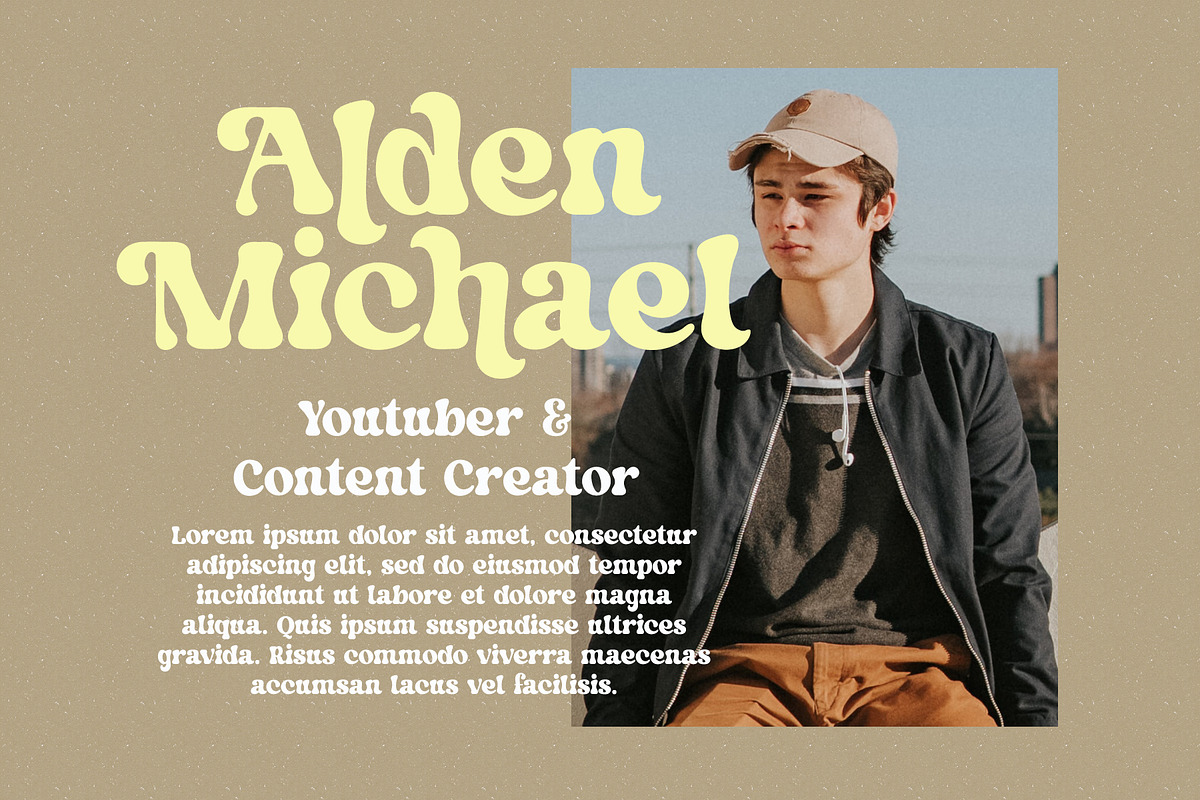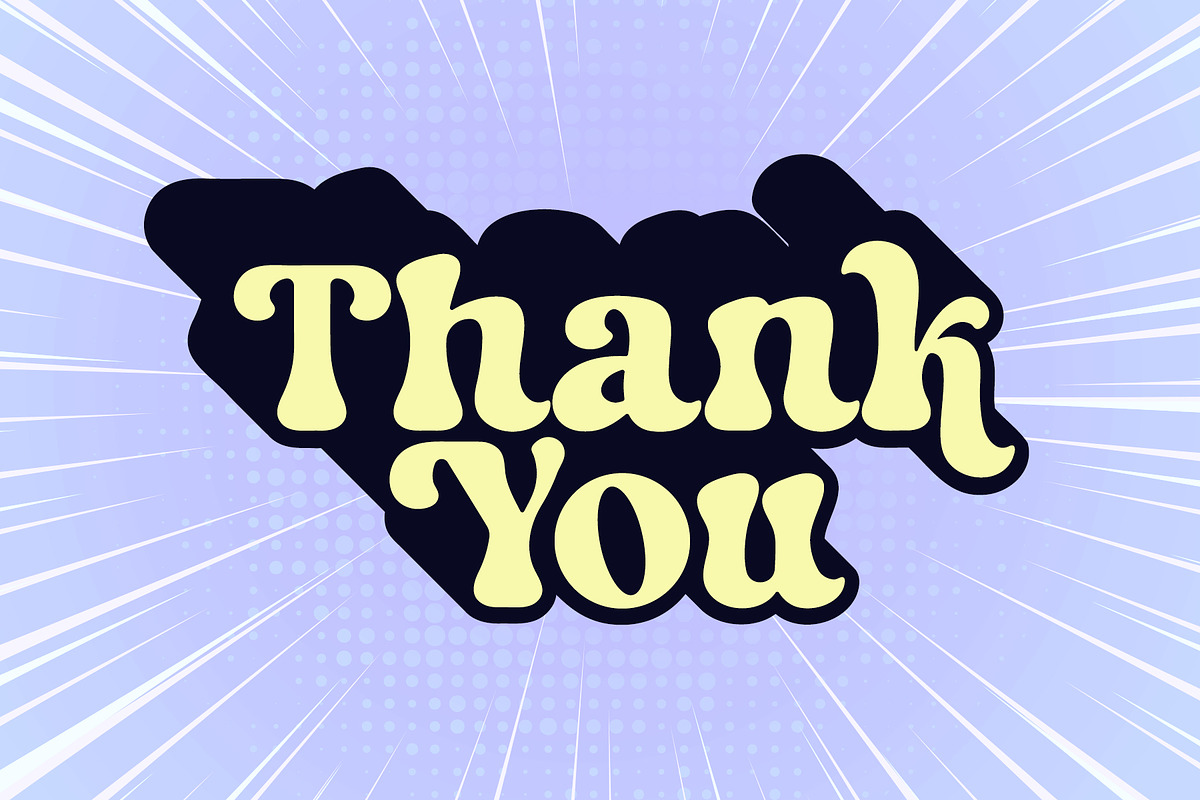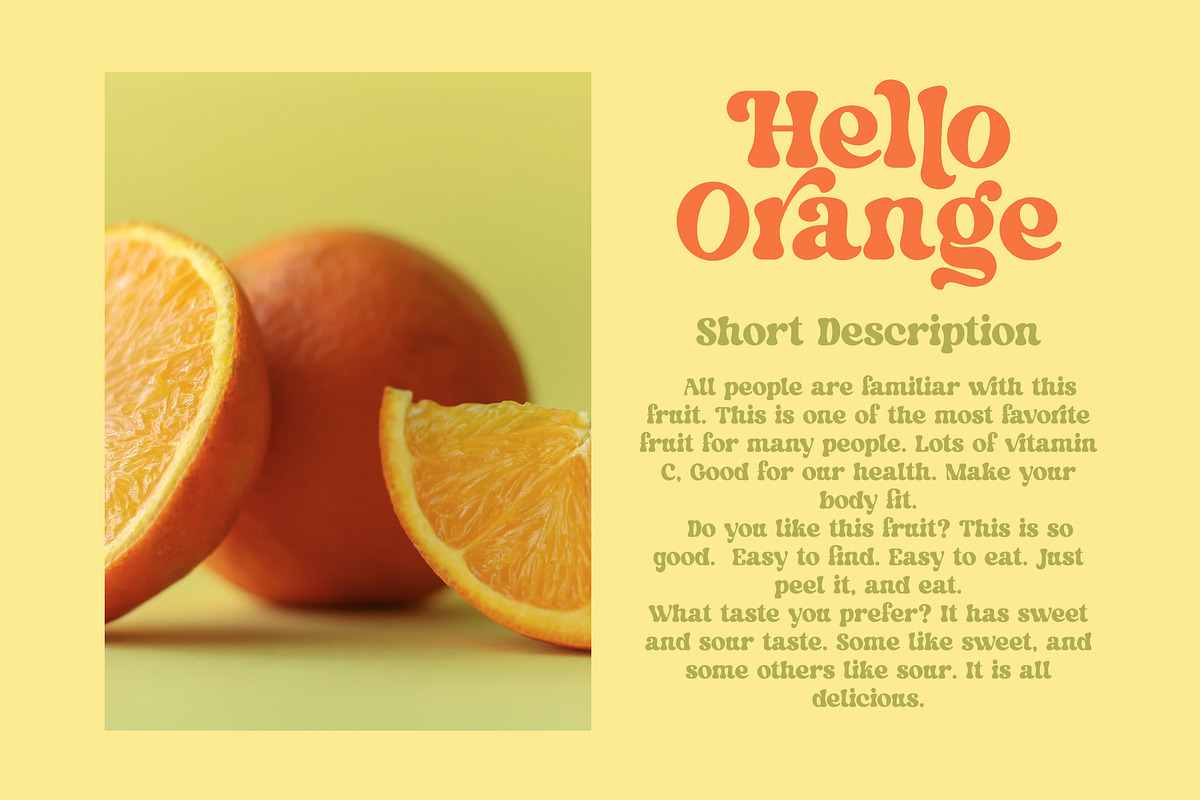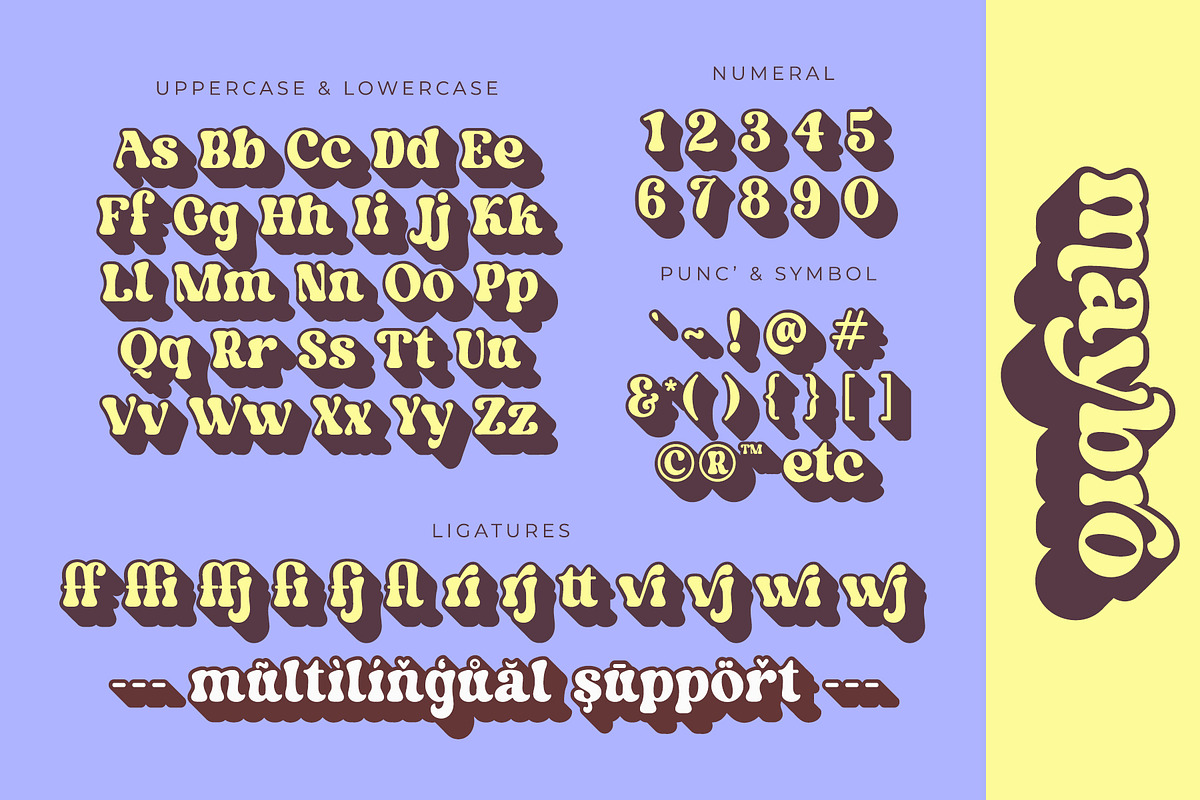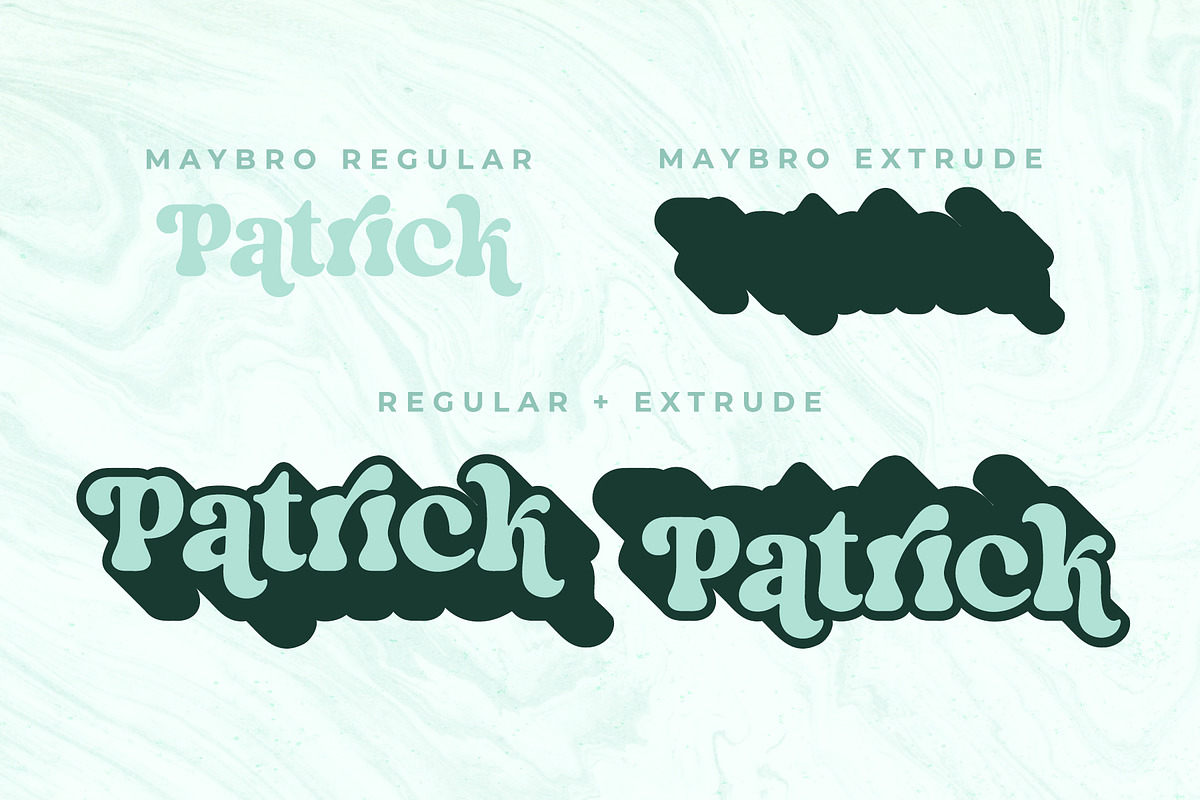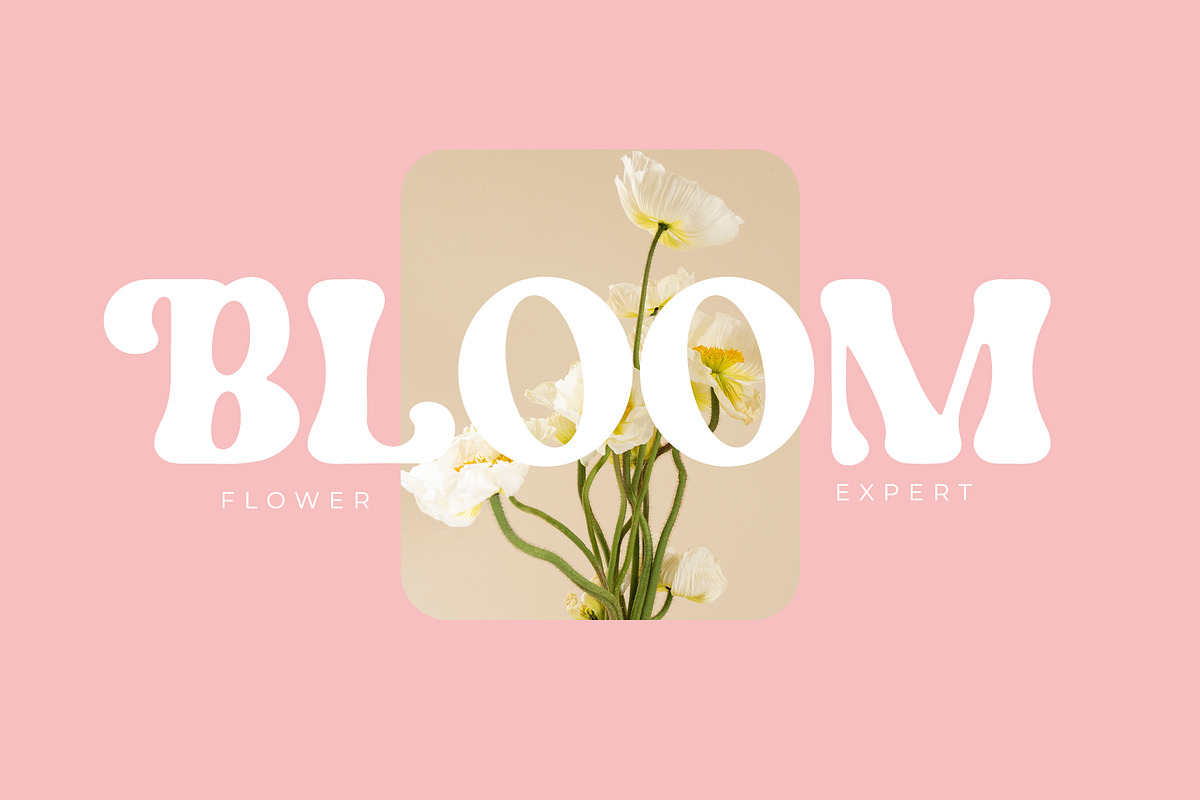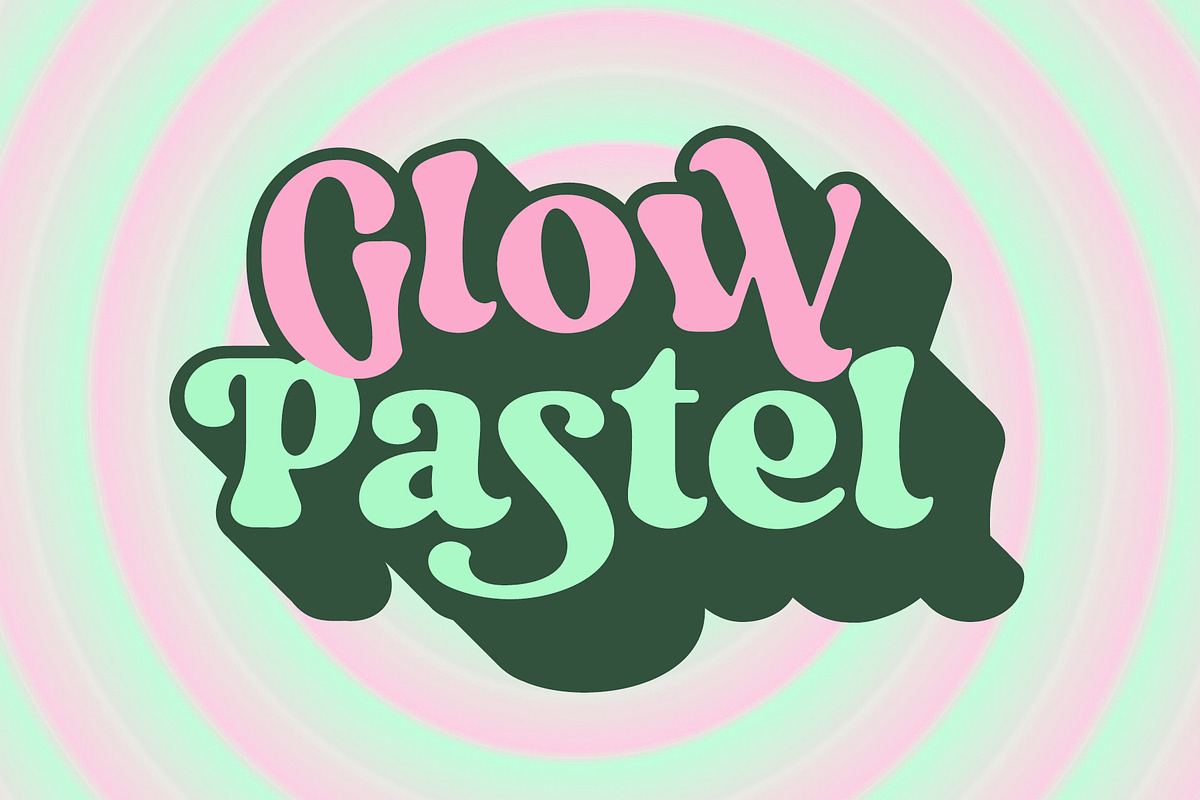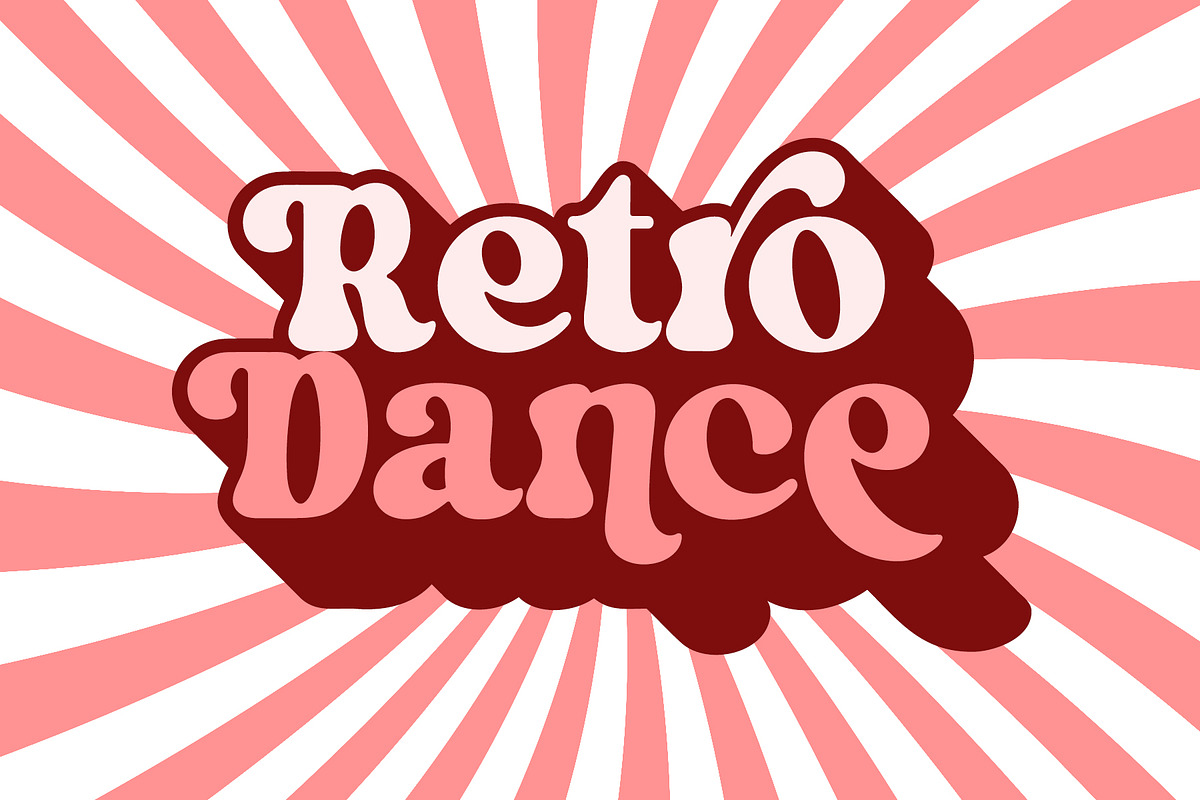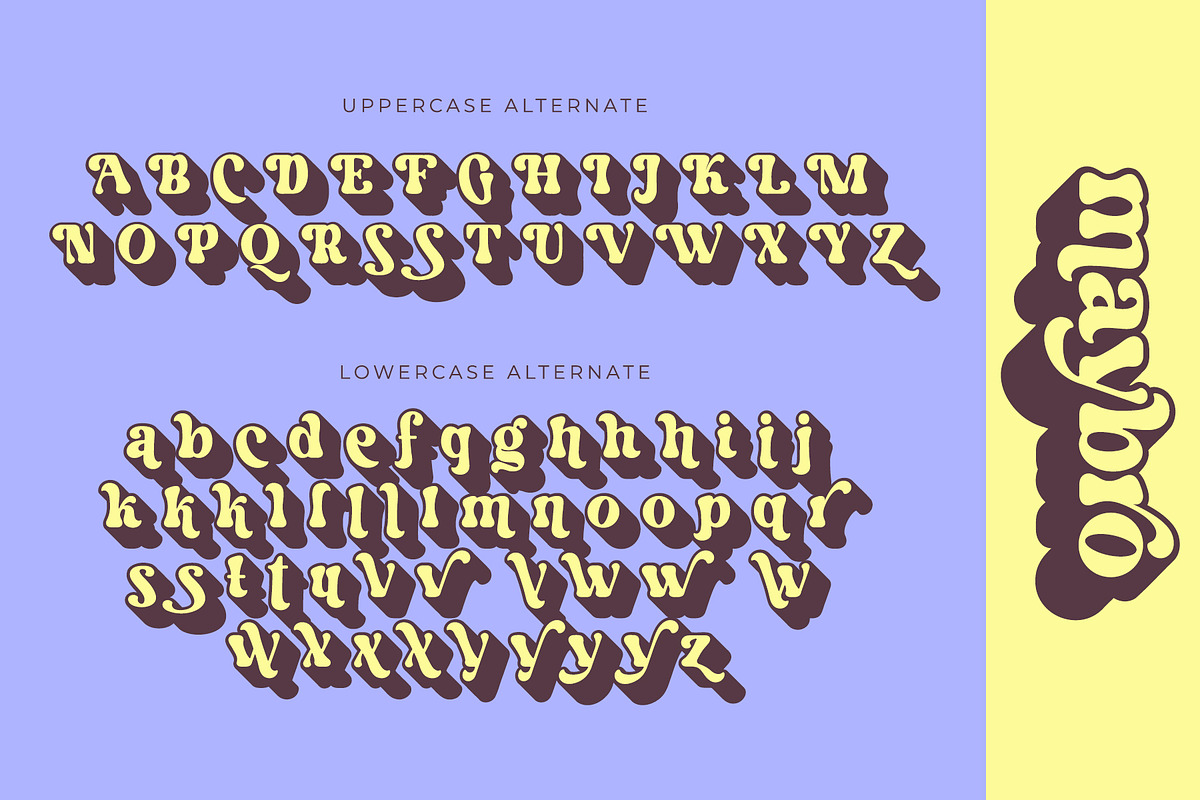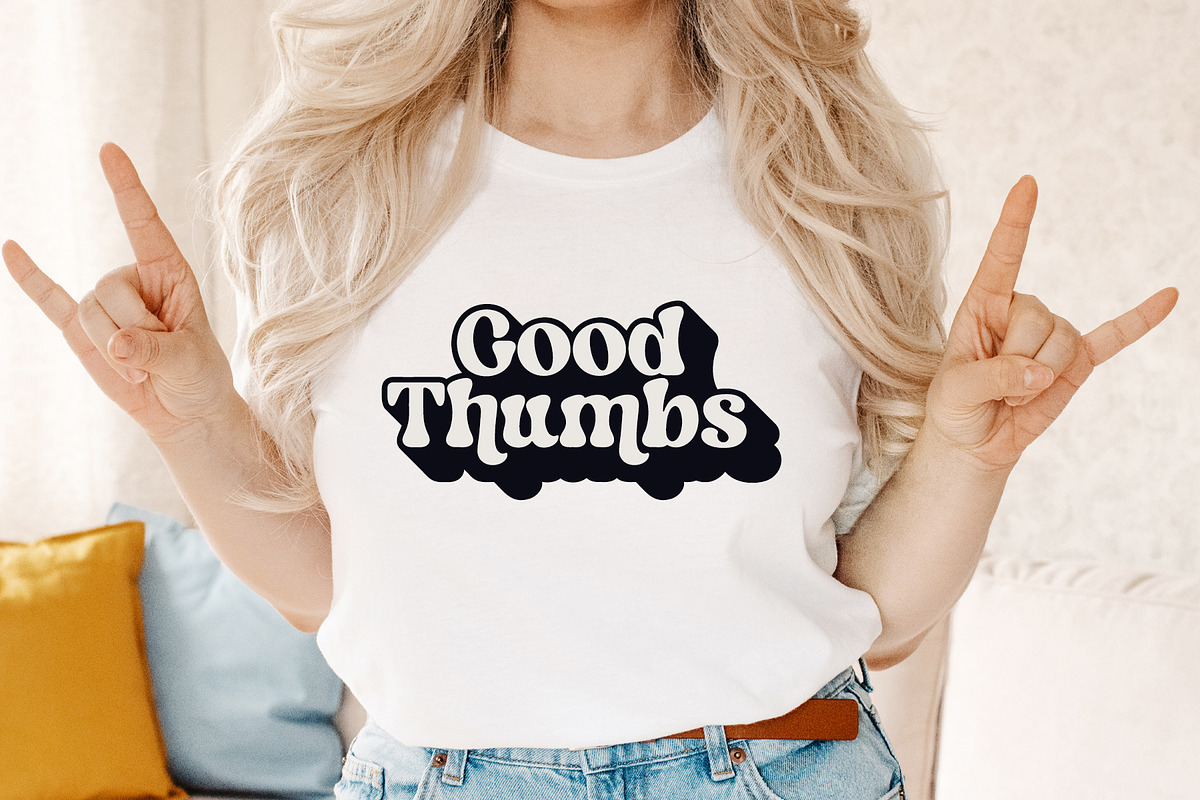
Maybro - Vintage Retro Serif Font
Maybro is serif font with retro and vintage vibes. It has cuteness and playful touch.
This font is perfect for any projects, especially with vintage style, such as logo, crafting, wedding invitation, branding, sticker, sublimation, quotes, and many more.
- Uppercase and Lowercase (includes Pua-Encoded alternate glyphs)
- Most Multilingual Accent